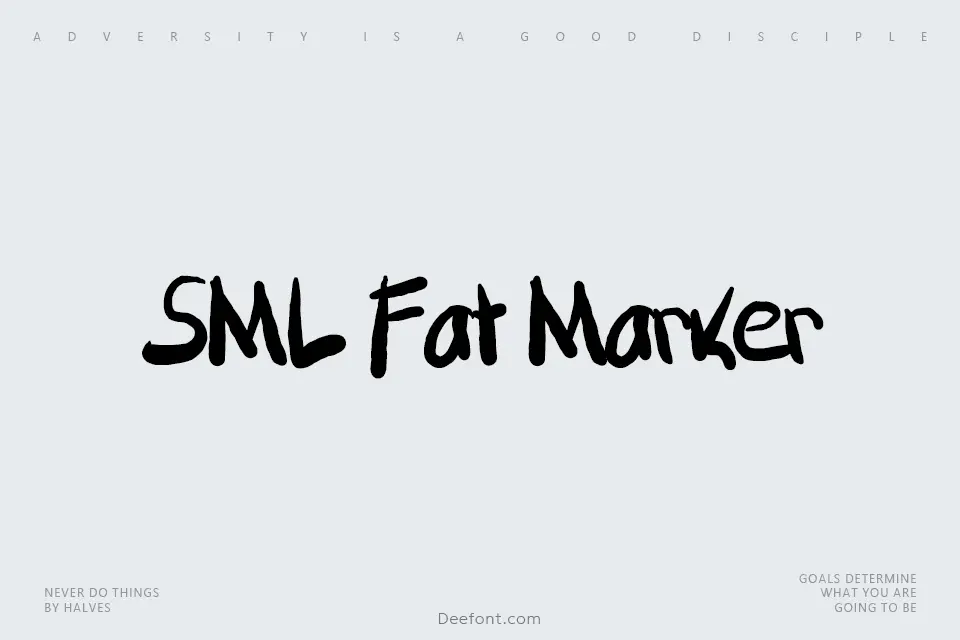
SML Fat Marker Font
SML Fat Marker is a bold, hand-drawn marker script with chunky, uneven strokes and an energetic, slightly grungy feel. Its loose handwriting shapes, rough ink edges and playful bounce create a raw, expressive rhythm that works brilliantly for attention-grabbing titles. This font is ideal for horror movie posters, Halloween graphics, street art style logos, standout social media headers, DIY packaging, party invitations and any design that needs a loud, urban, handmade marker look.